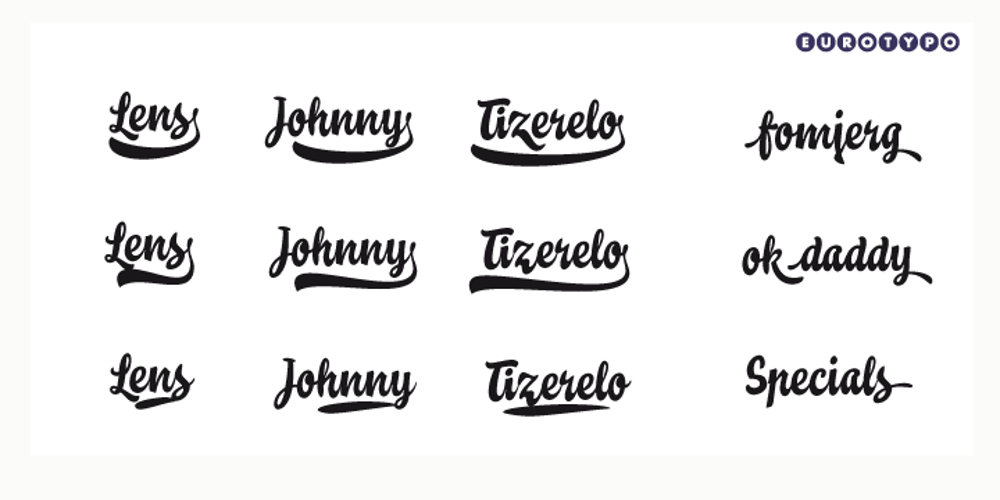
Teja
Teja font
Teja Font Family was designed by Olcar Alcaide and published by Eurotypo. Teja contains 1 styles and family package options. “Teja” font was inspired in the lettering styles printed on enamel advertising signs. The enameled iron signs were, from 1880s until the 1950s, amongst the most striking features of streets and railway stations in most towns and villages around the world. “Teja” was designed specially for use in logotypes, advertising and packaging. It is interesting to note the use of free-flowing lettering to perform its own eye-catching.